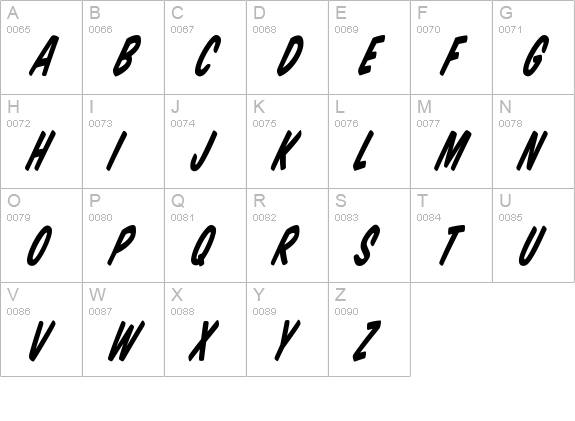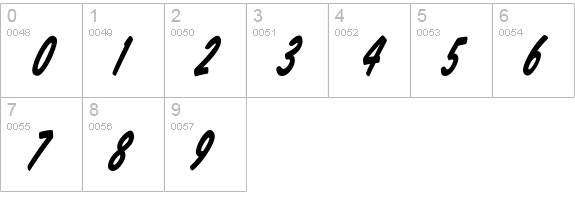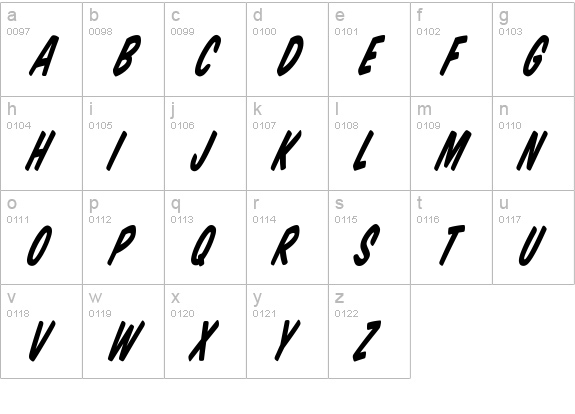
Komika Title - Tilt font is a bold and dynamic typeface that exudes a sense of modernity and creativity. Its unique tilt design adds a playful twist to any text, making it perfect for eye-catching headlines, posters, and branding projects. The clean lines and sharp angles of this font give it a contemporary edge that is sure to make your designs stand out. What makes Komika Title - Tilt font even more appealing is that it is available for free download at FontsMarket.com. This means that you can easily access this stylish font and use it in your projects without any cost involved. Don't miss out on the opportunity to enhance your designs with the striking visual impact of Komika Title - Tilt font - download it for free today!